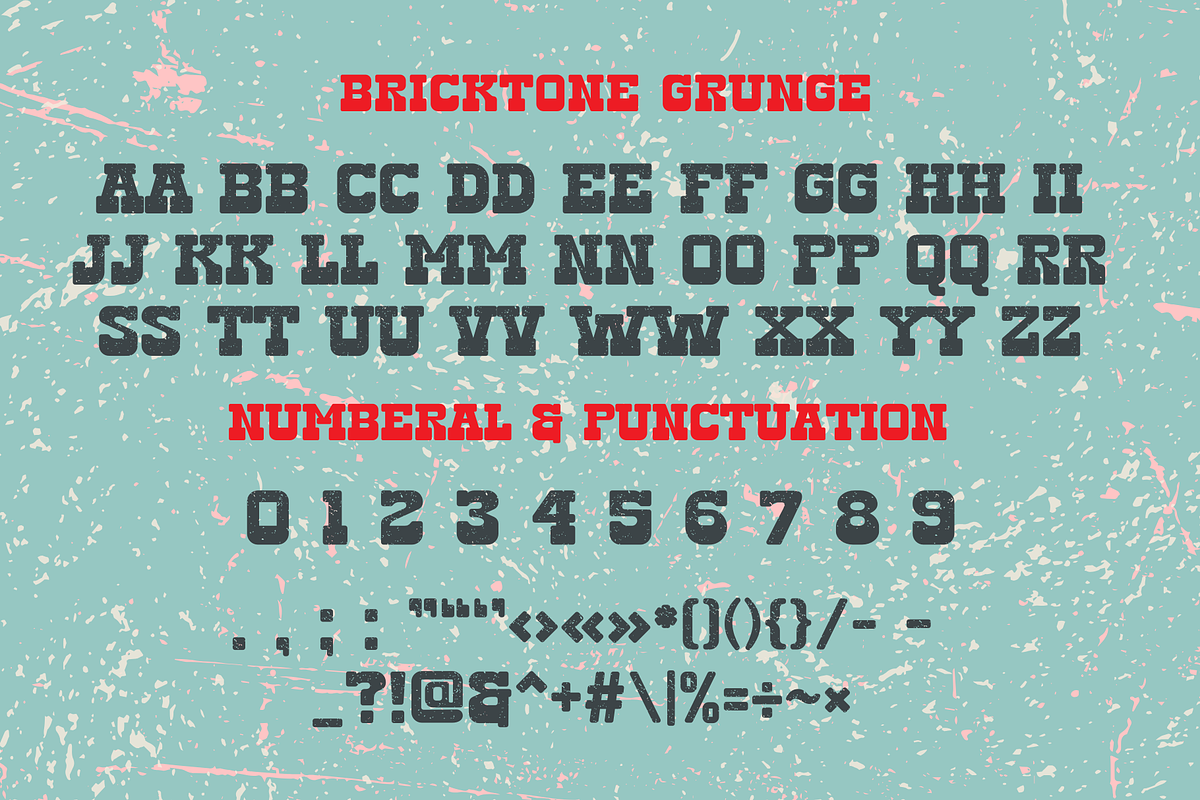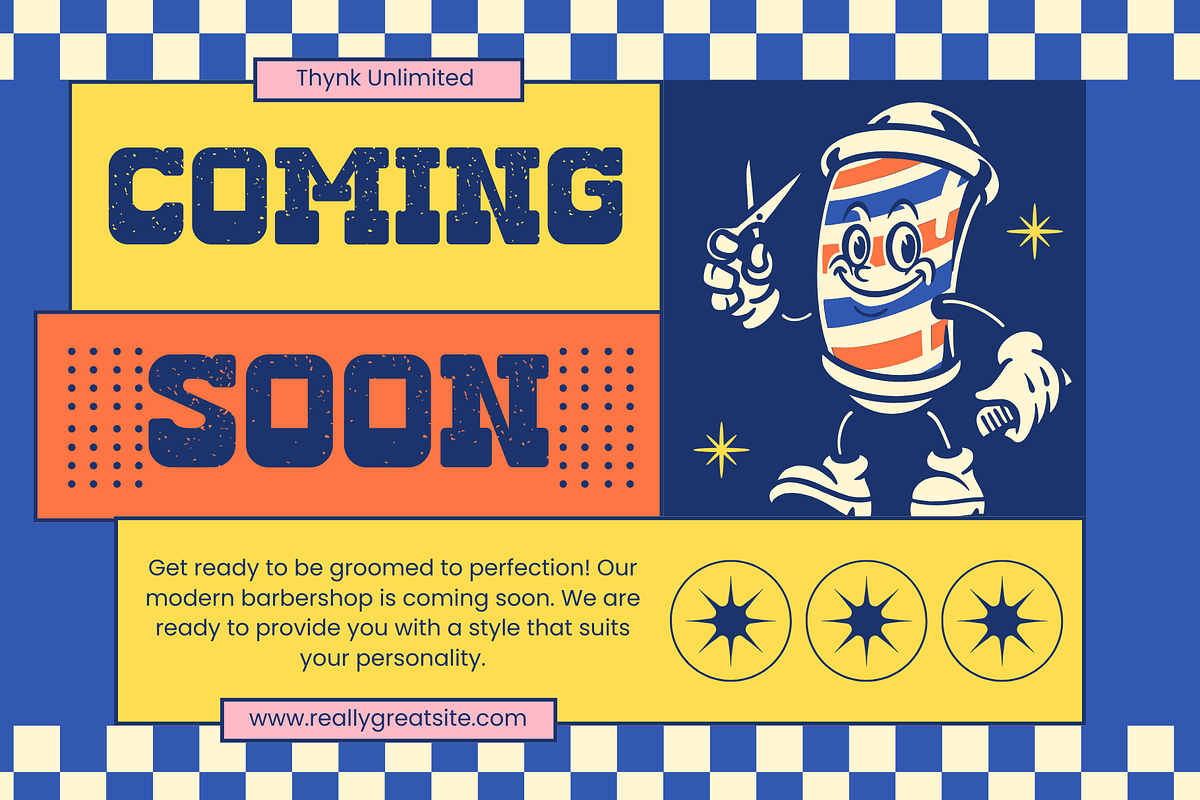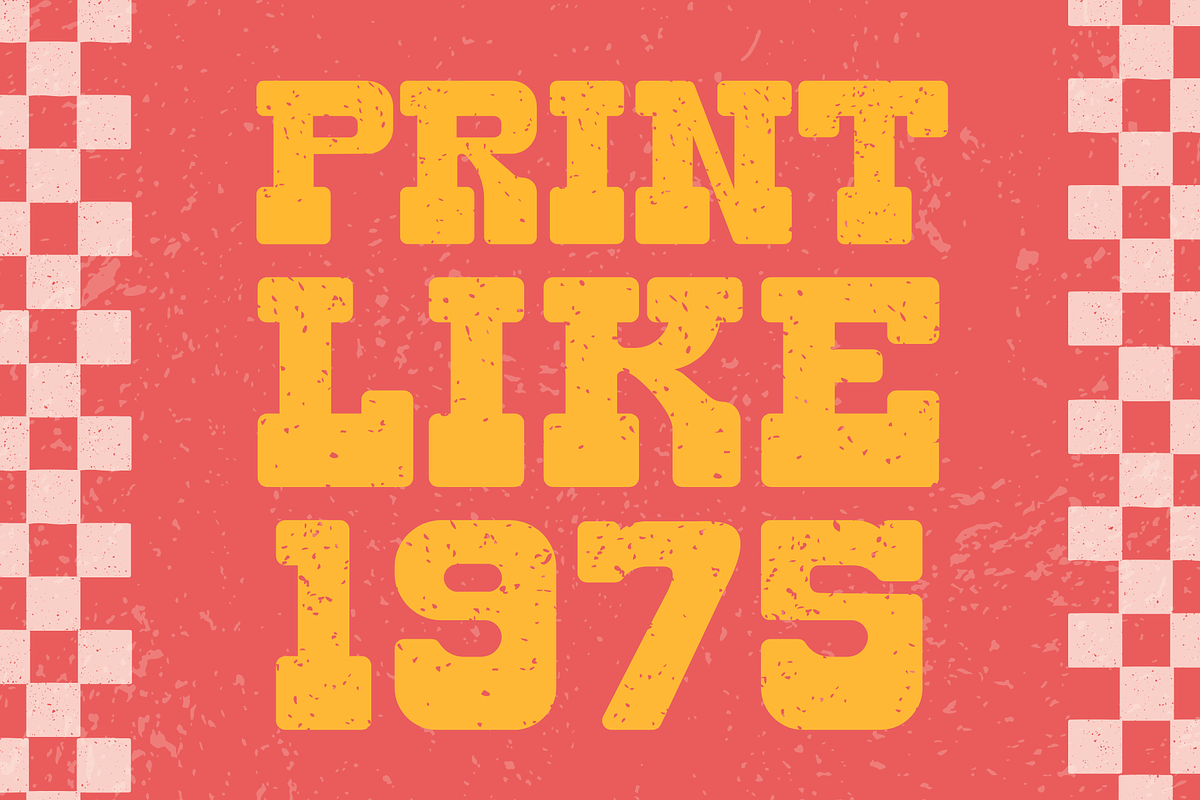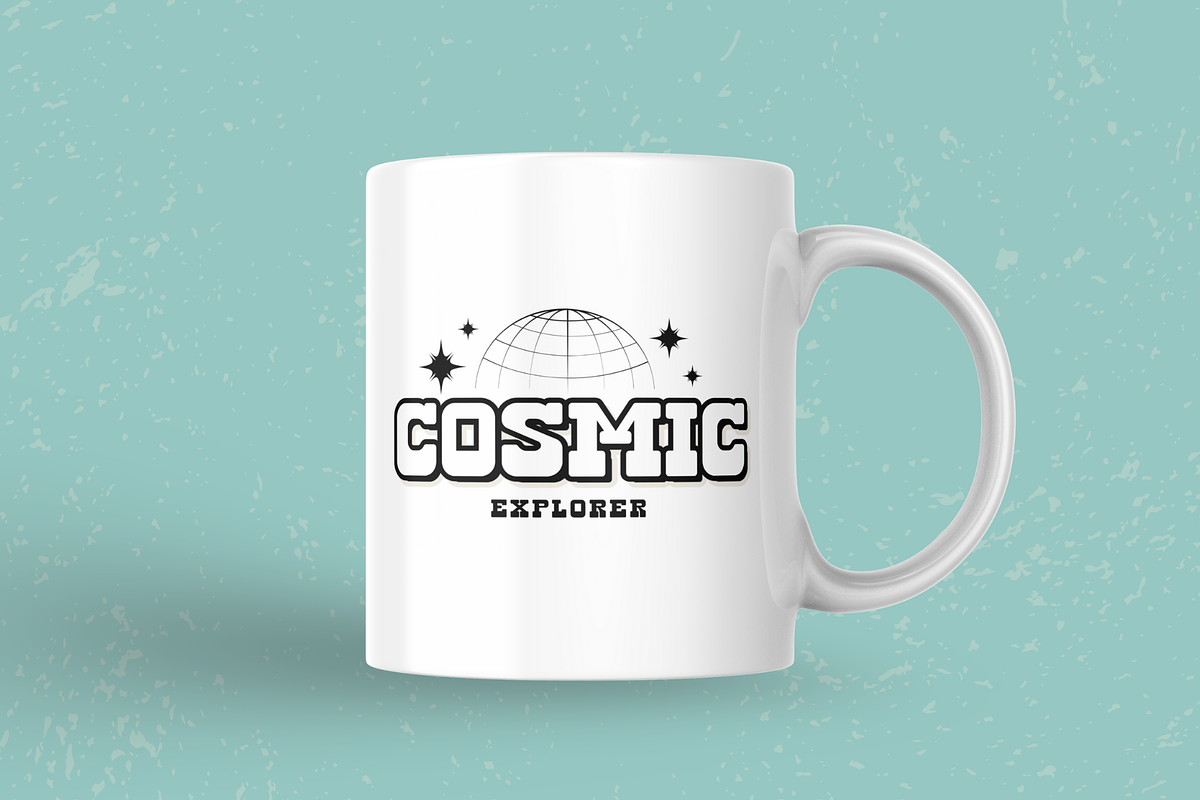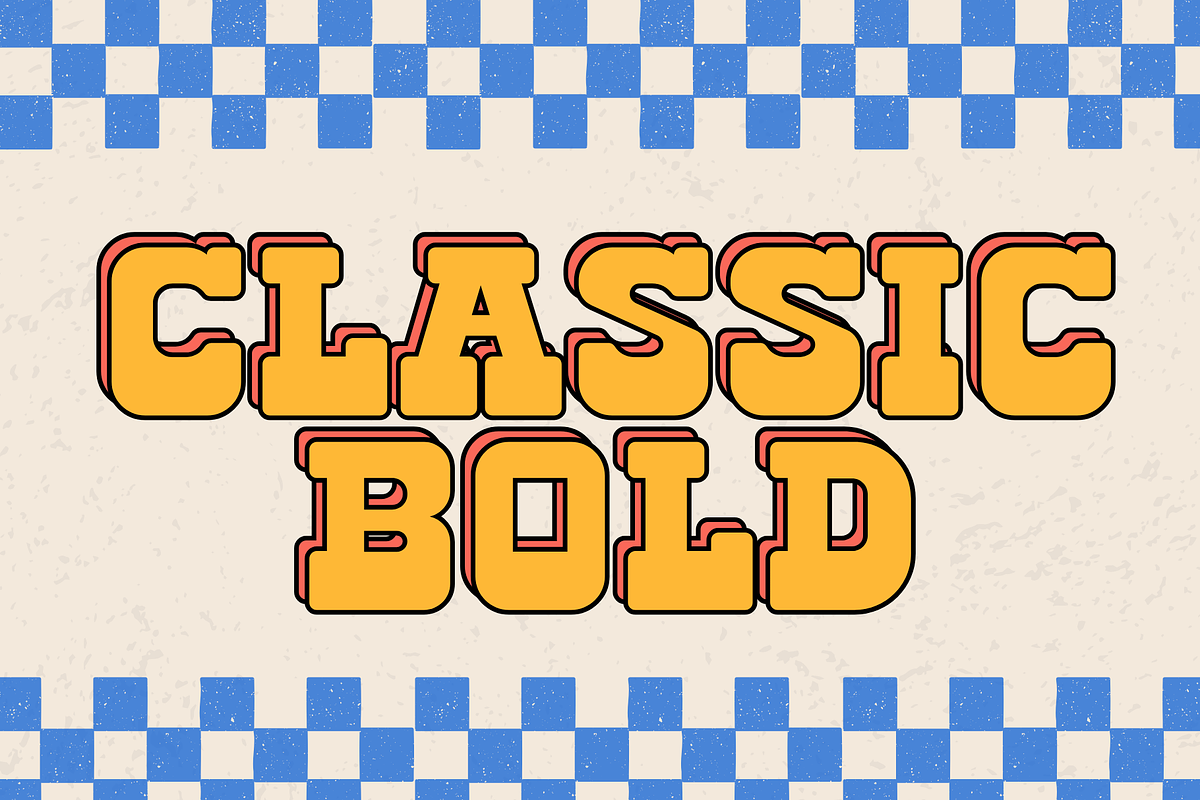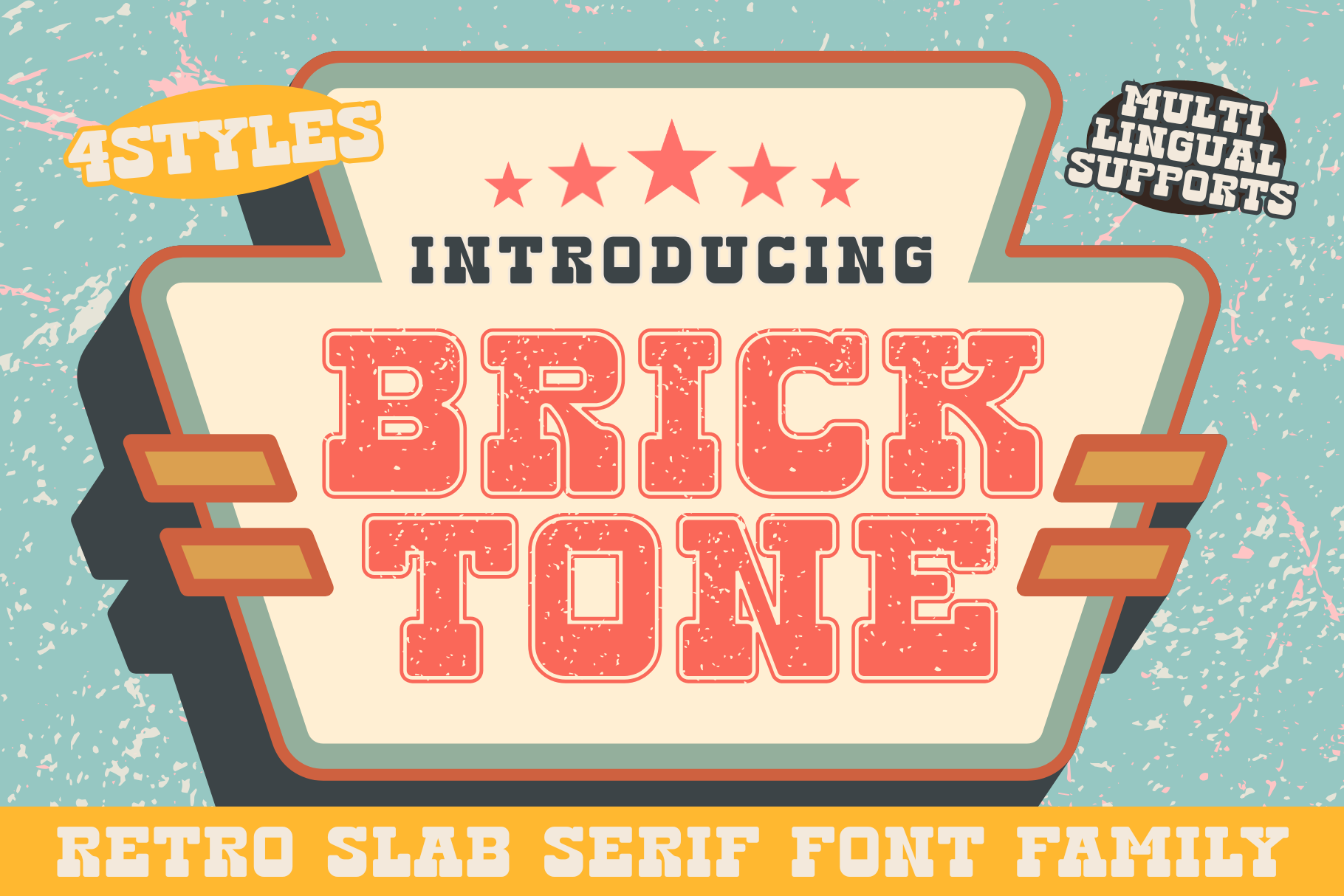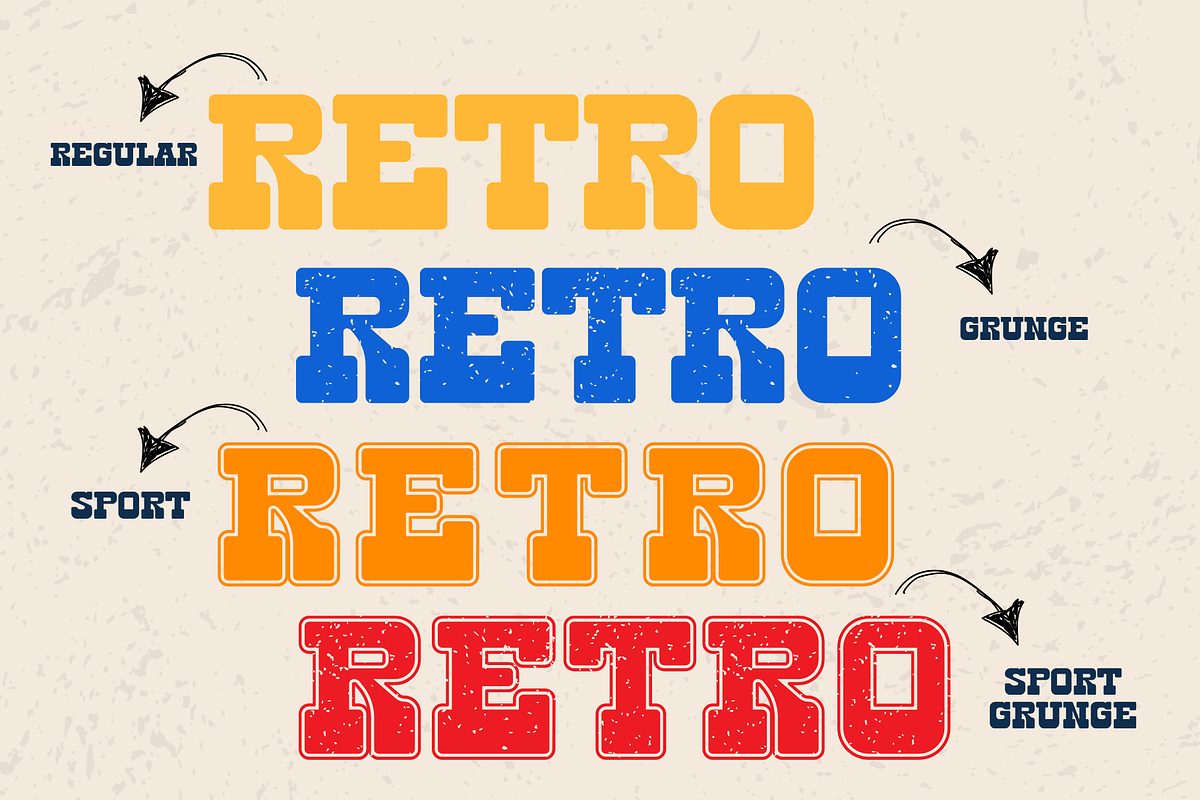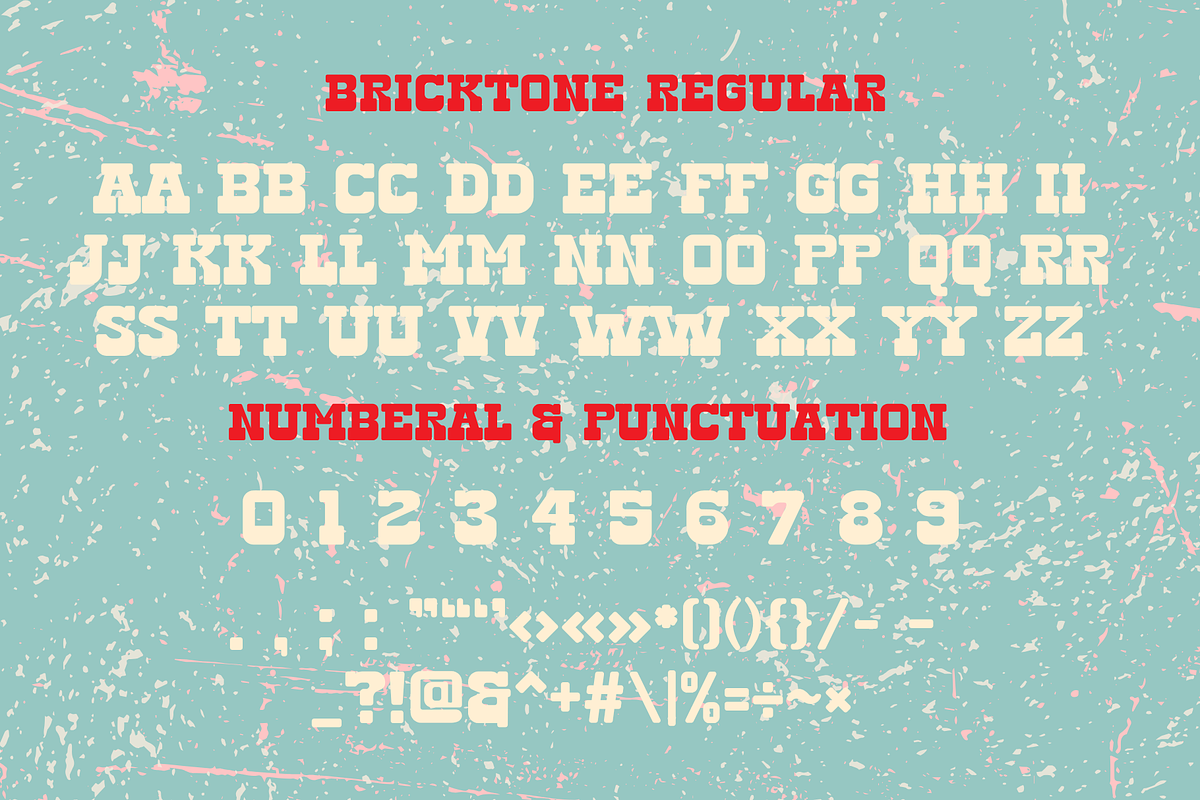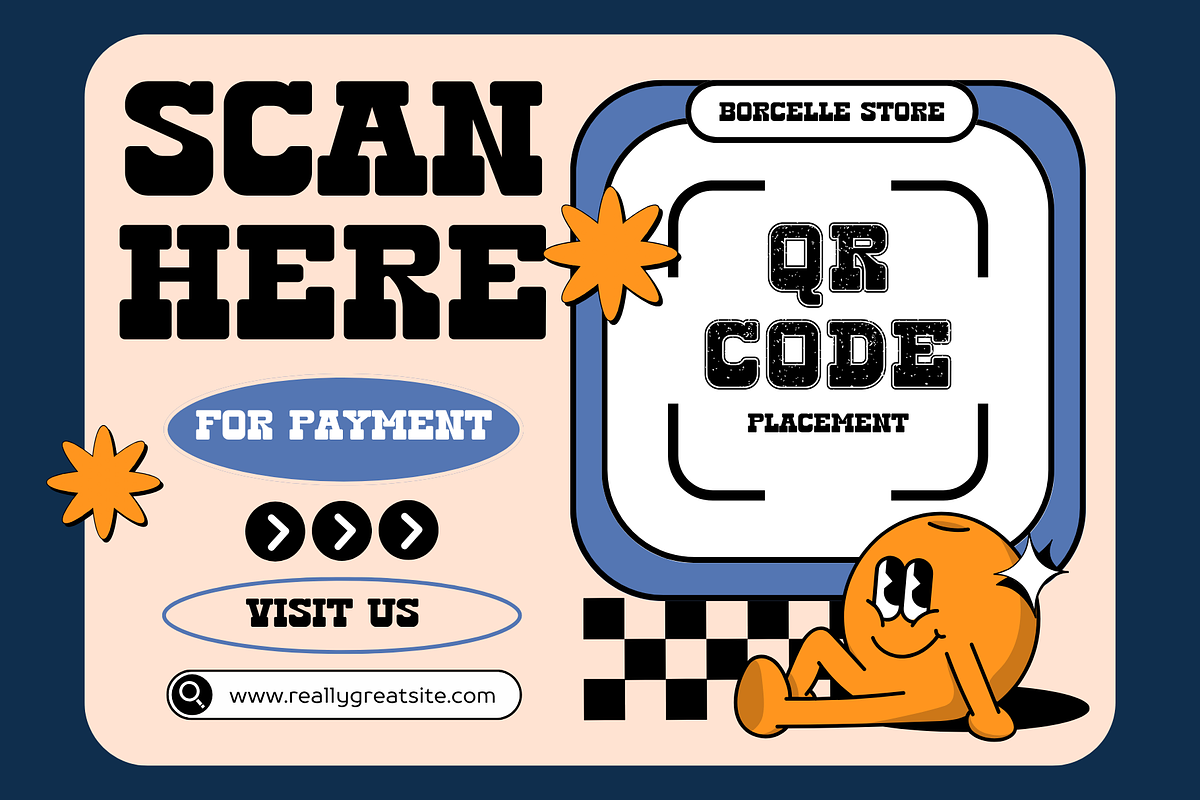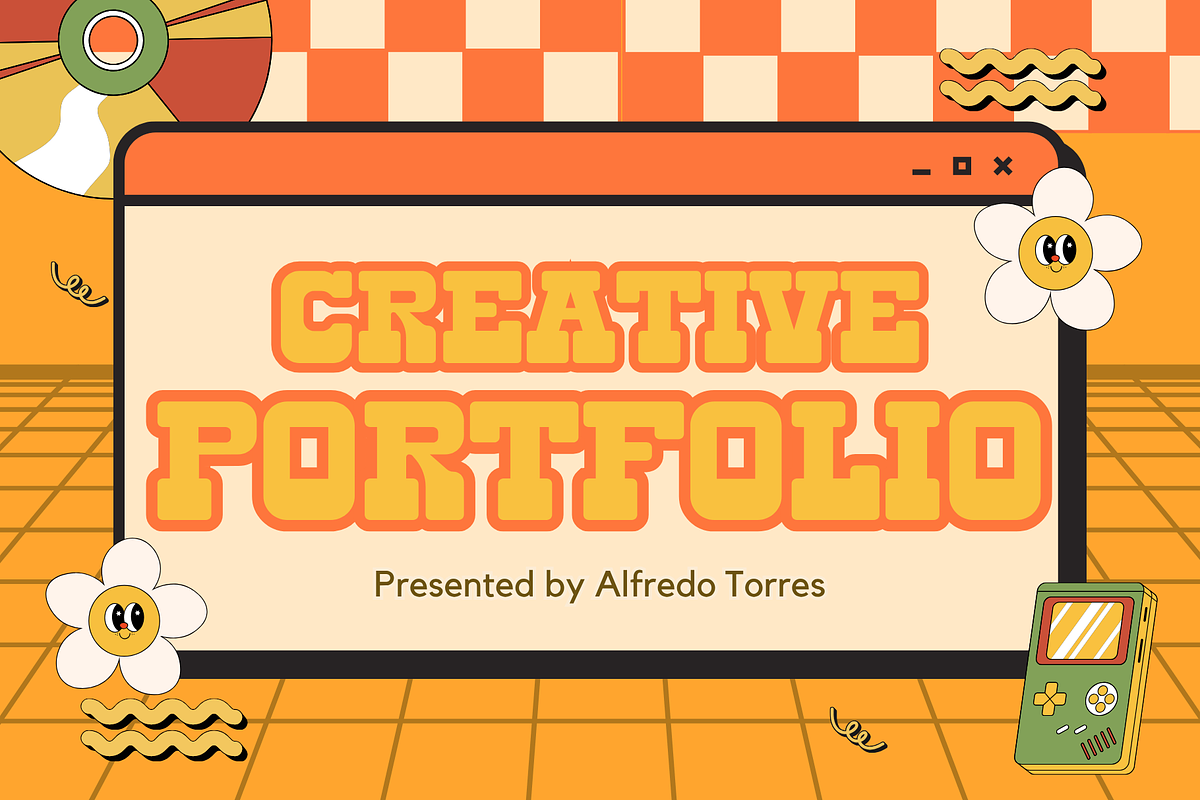
Bricktone is a Retro slab serif font
Bricktone is a bold and confident retro slab serif font inspired by classic signage, vintage sportswear, and industrial letterpress aesthetics. With its sturdy slabs and nostalgic flair, it brings timeless character to both modern and retro design projects.